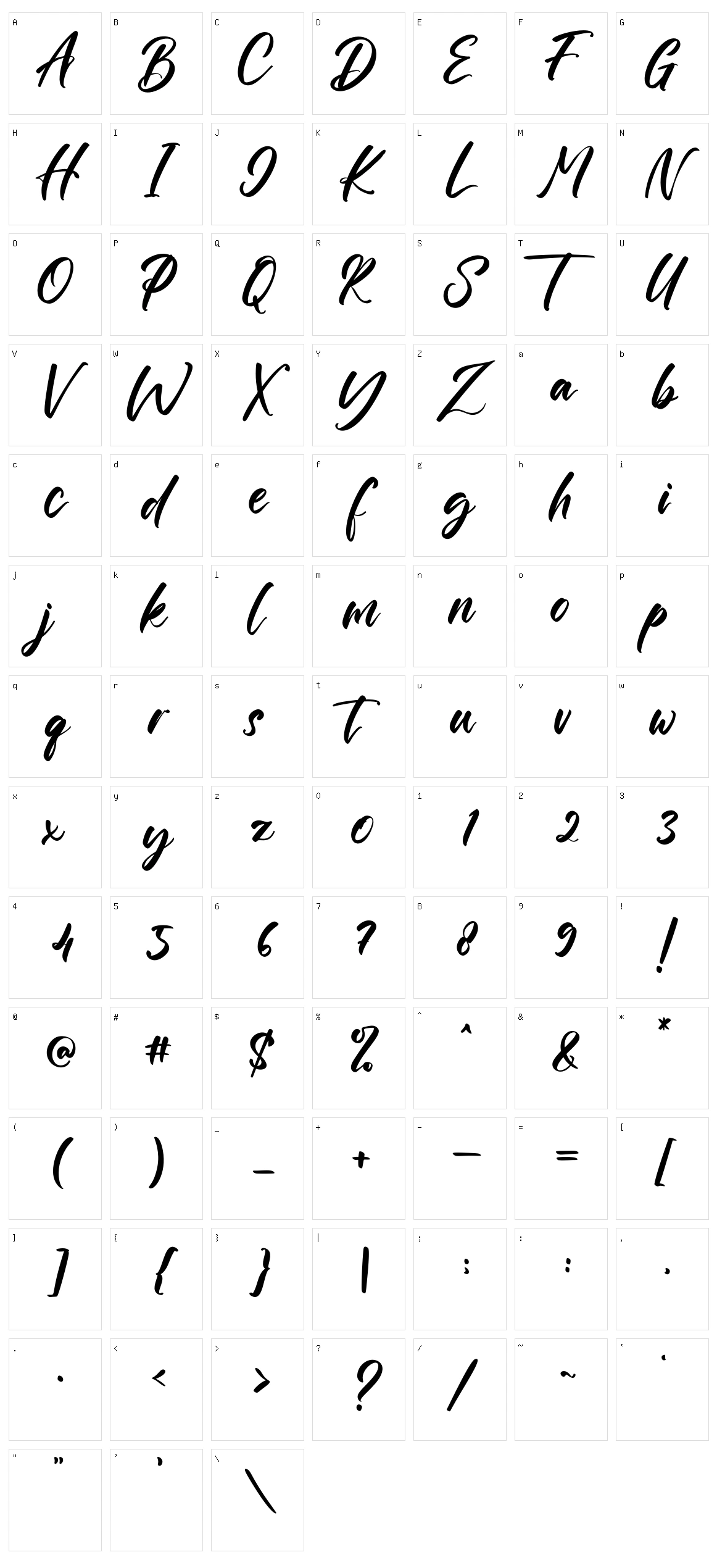
The free font Diana Zetta is carefully designed by Arlila Foundation, showcasing a thoughtful balance of creativity and usability and falls under the Script font style. When you download the ZIP file, it contains only 98.81 KB of font files, making it lightweight and quick to download. Please review the license details below to understand permitted usage and distribution rights. If license information is not available, we recommend using this font for personal projects only or contacting the author directly for commercial usage permissions.